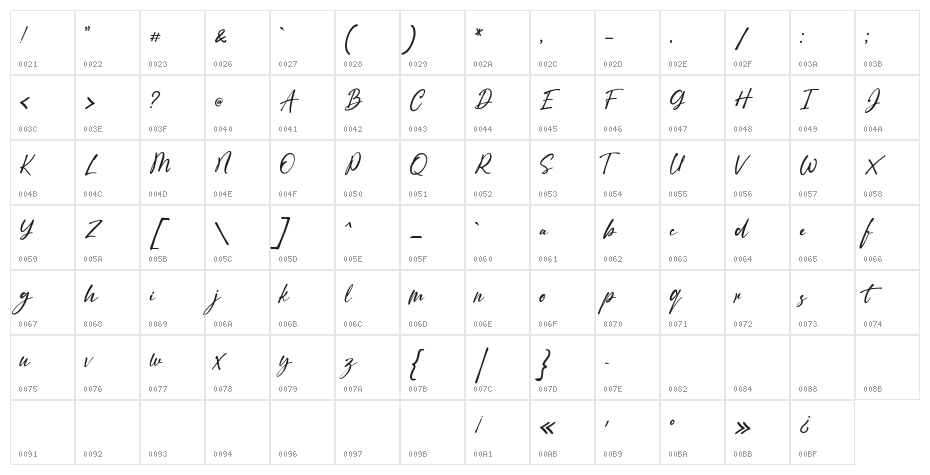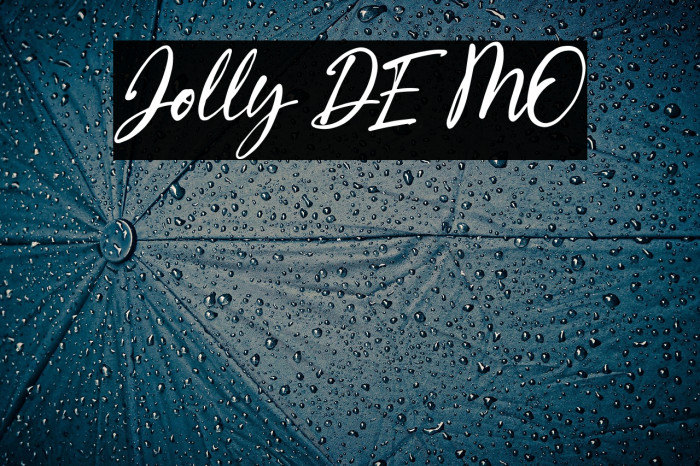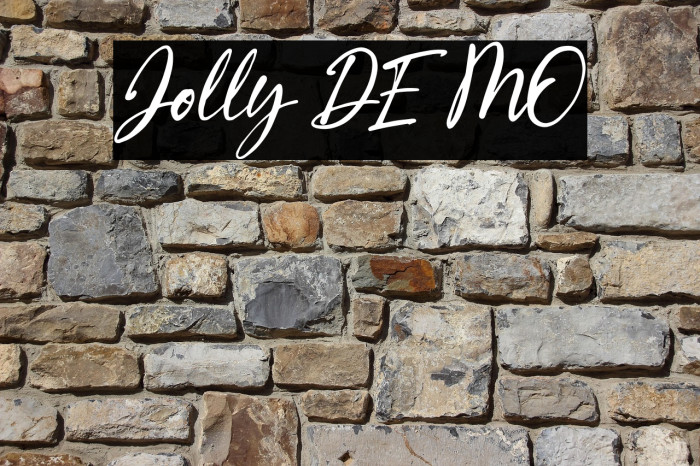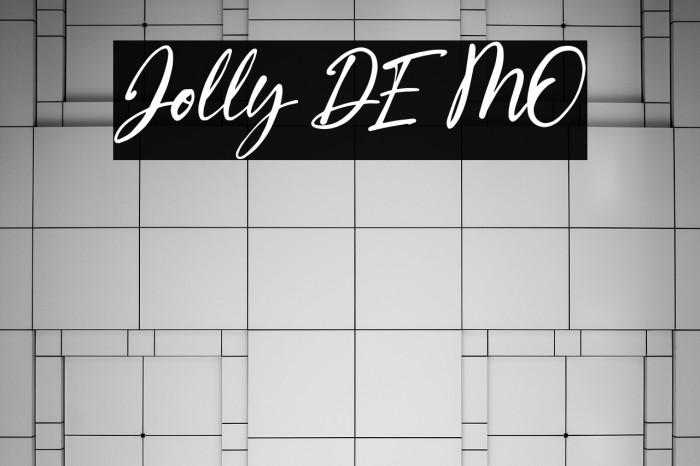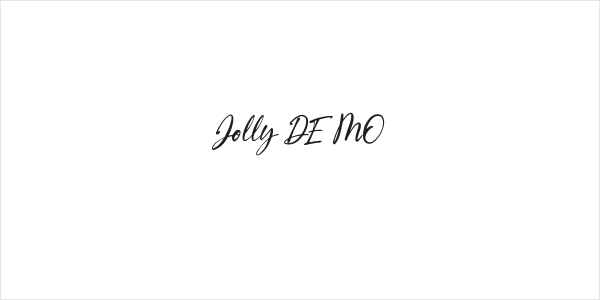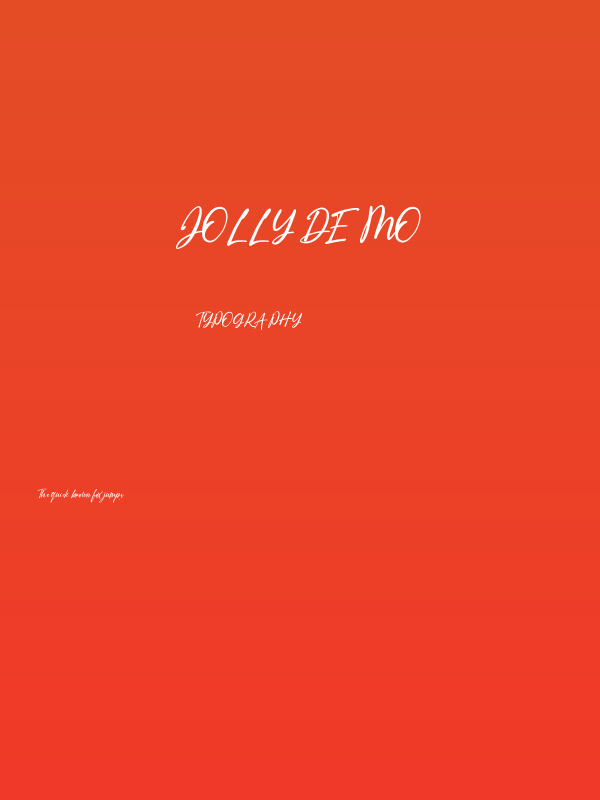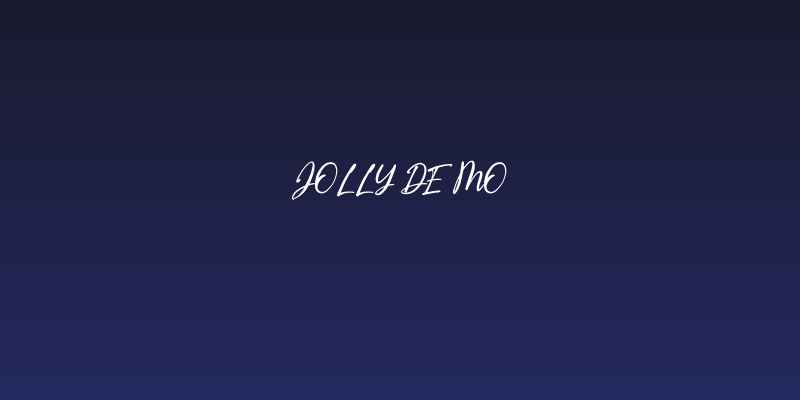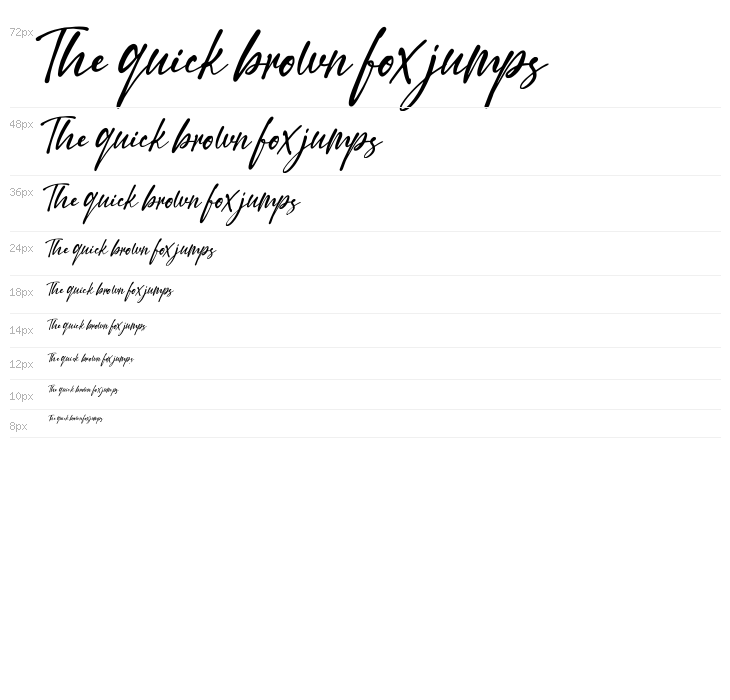
Jolly DEMO Font
Jolly DEMO Description
This font features a lively and flowing script style, characterized by its elegant and dynamic strokes. The letters are interconnected, creating a sense of continuity and movement. The uppercase letters are bold and slightly slanted, while the lowercase letters maintain a consistent rhythm with smooth curves and loops. The font exudes a sense of sophistication and playfulness, making it suitable for creative and expressive designs. The special characters are crafted with the same attention to detail, ensuring a cohesive look across all elements.
| Proposed Projects | Ideal for wedding invitations, greeting cards, branding projects, and any design requiring a personal touch. |